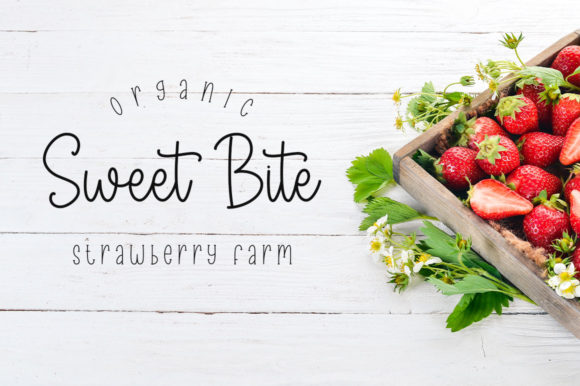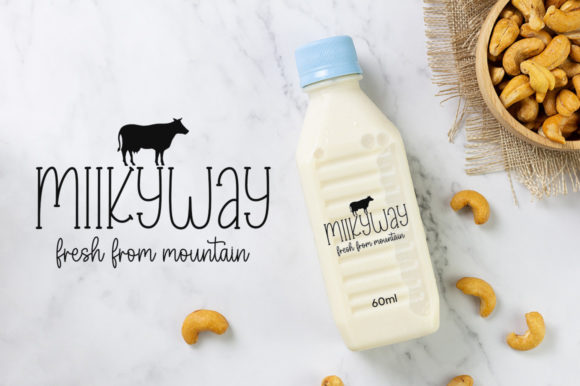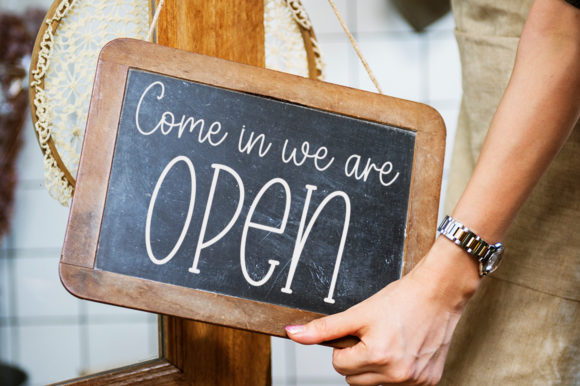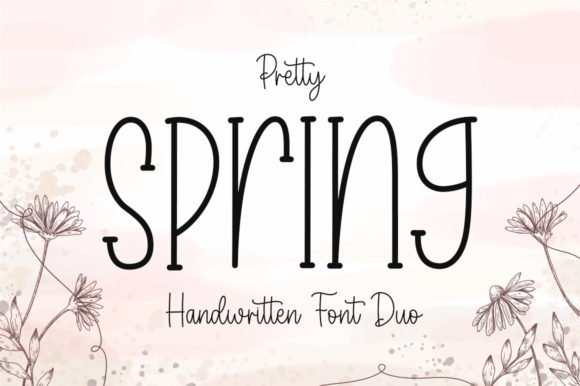
Introduction to Pretty Spring Font
Pretty Spring consists of two fonts designed to complement each other perfectly.
Together or apart, these fonts are ideal for adding a chic and cheery touch to your crafts .